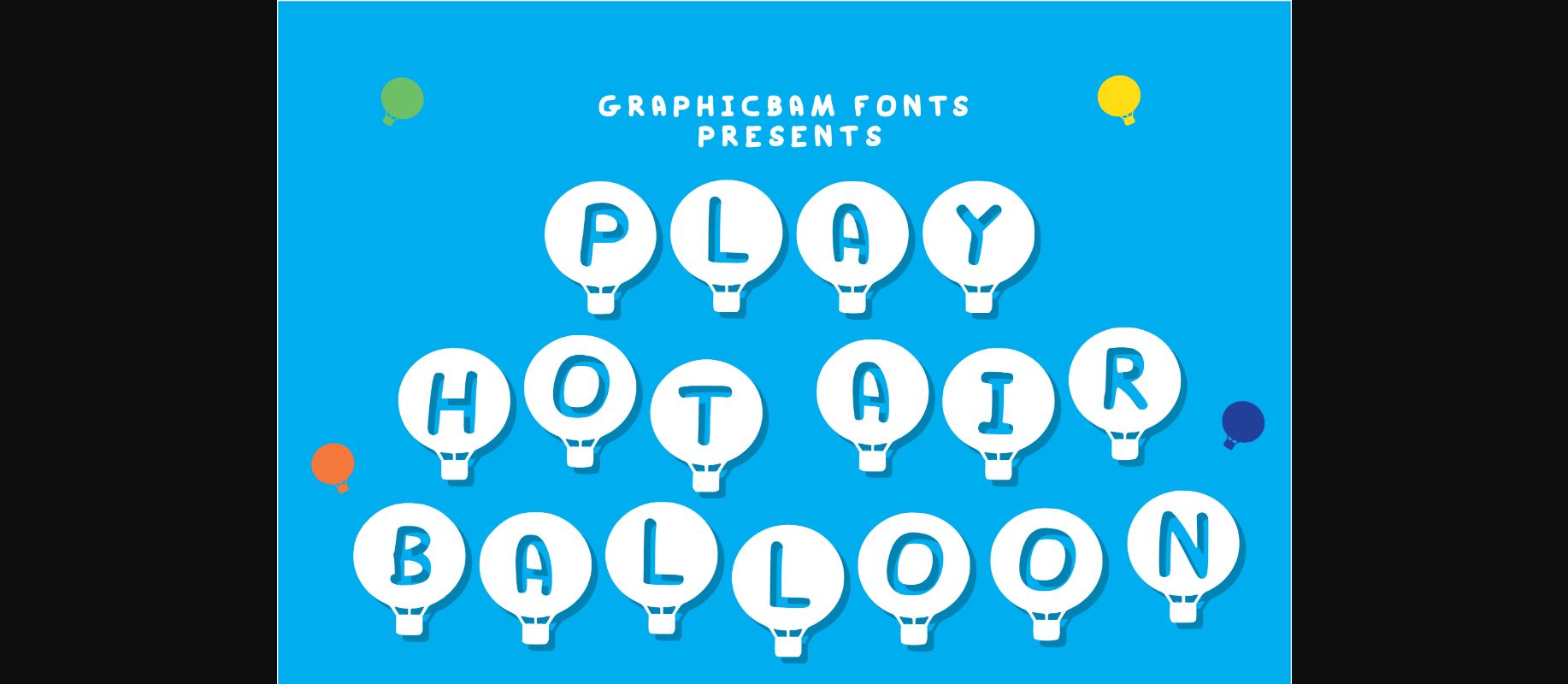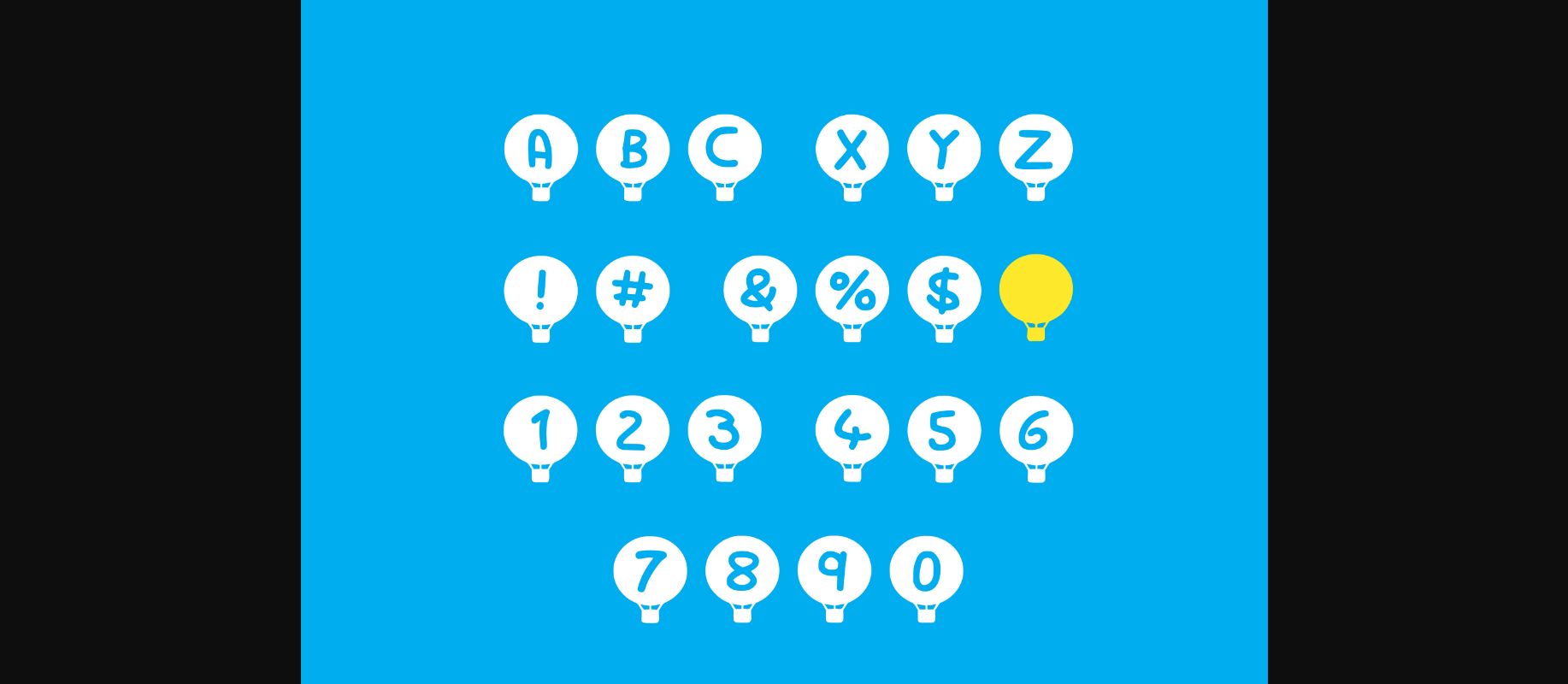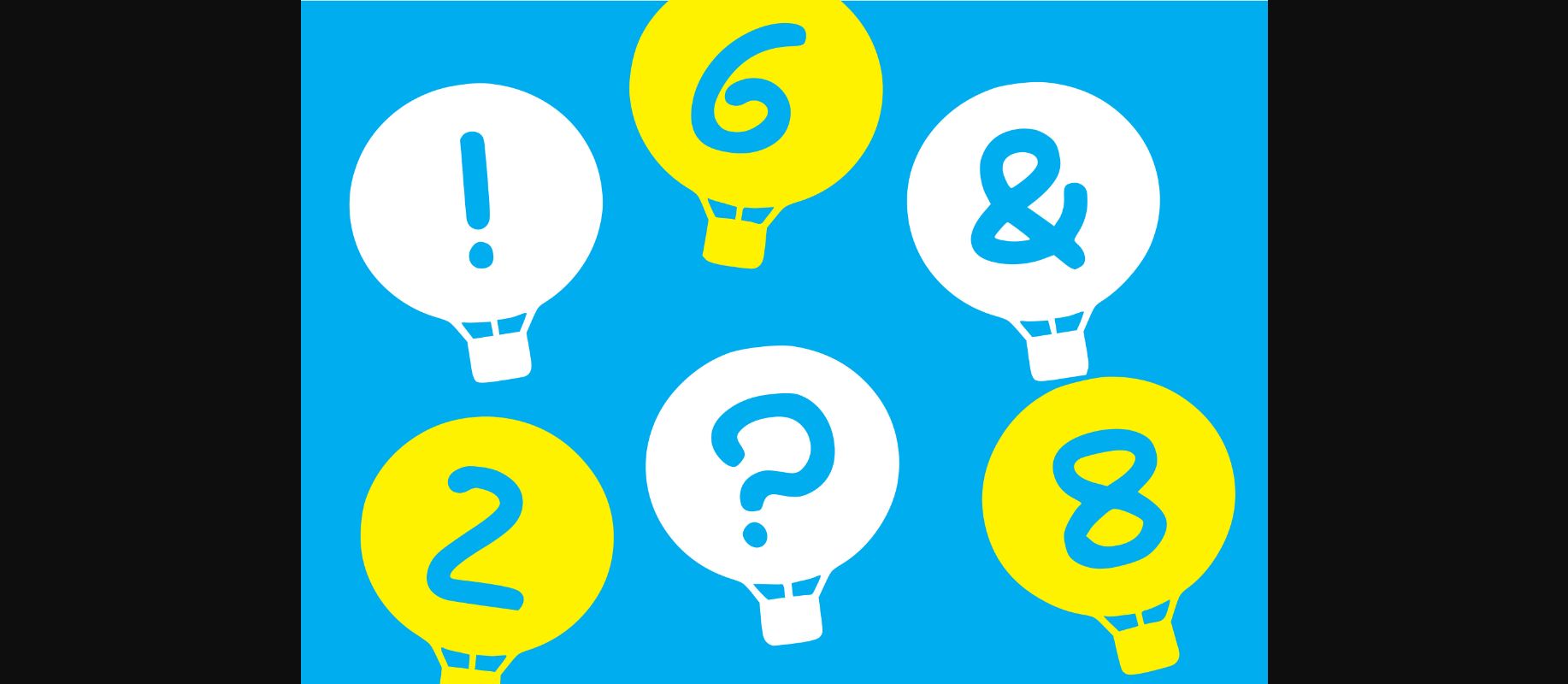
Play Hot Air Balloon Font
About Play Hot Air Balloon Font
Play Hot Air Balloon is a lovely decorative font, featuring a set of balloons with a playful, child-like vibe. It embodies trendiness and authenticity and is the perfect choice for any children activity or school project.